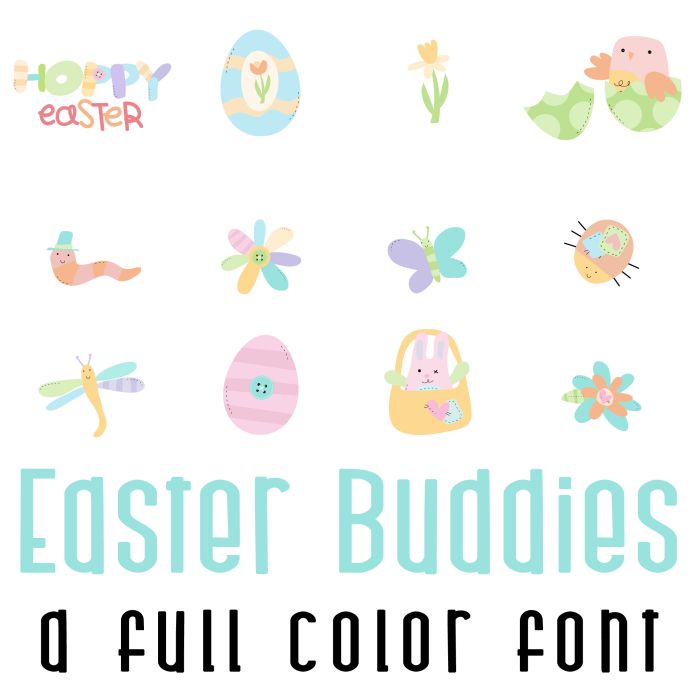
Easter Buddies Full Color Font is a whimsical and vibrant font design perfect for Easter and Spring-themed projects. It features cute and playful characters in a variety of pastel colors, adding a fun and festive touch to any design. This font is ideal for cards, crafts, parties, gifts, decor, planner stickers, classrooms, scrapbook pages and more!